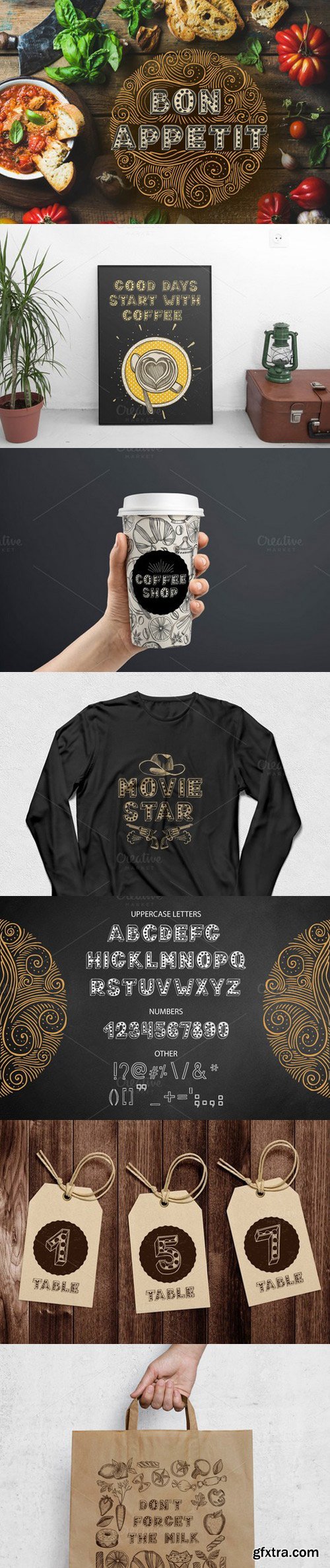
Bon Appetit Font
Bon Appetit - a handmade font consisting of uppercase letters, punctuation and numbers. Basic Latin alphabet A-Z. Also this font comes with graphic doodle elements.